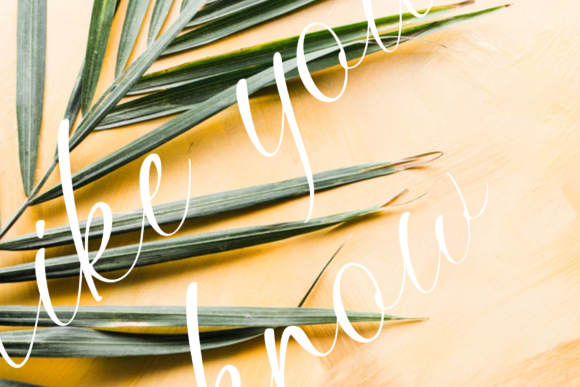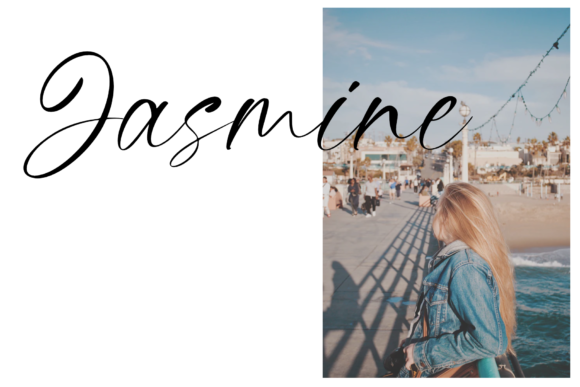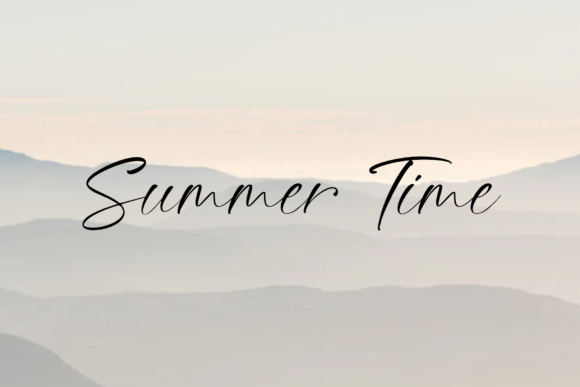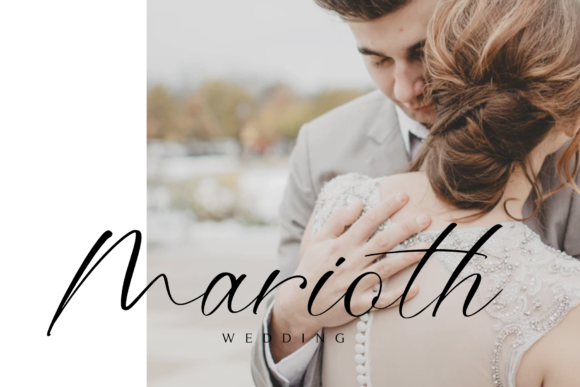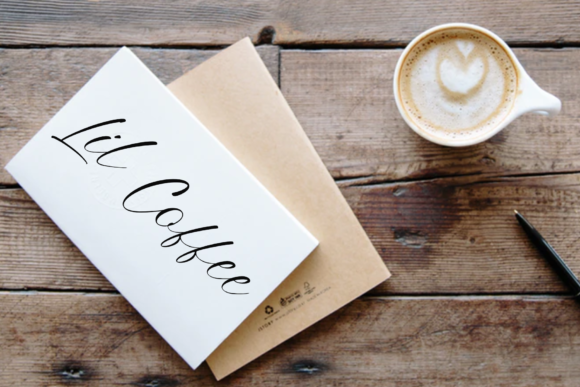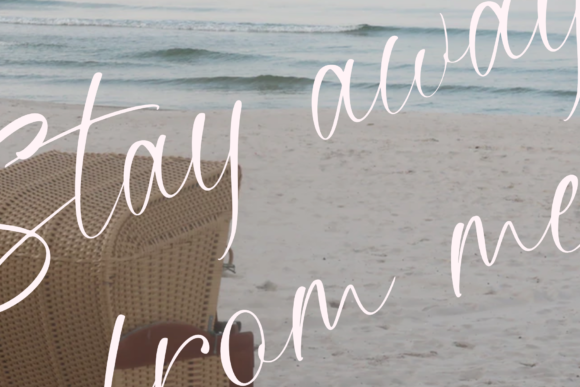
Introduction to Ruttany Font
Have you ever found yourself staring at a blank canvas, searching for the perfect font to bring your creative project to life? That’s exactly where I was when I stumbled upon the Ruttany Font – a modern script font that instantly captured my heart. Its clean and elegant lines, reminiscent of a brush pen, made me feel like I was holding a real-life brush in my hands, ready to create something truly special.
As designers, we’re always on the lookout for high-quality design resources that can elevate our work and make it stand out. The Ruttany Font is a game-changer, offering a free download that’s perfect for logos, branding, social media, and crafty DIY projects. With its transparent background, the possibilities are endless – from digital designs to physical crafts, this font is a must-have in any designer’s toolkit.
Key Features of Ruttany Font
- High-quality design resource with a unique, hand-drawn aesthetic, perfect for creative projects requiring a personal touch.
- Designed to be versatile, making it suitable for a wide range of creative projects, from branding and advertising to digital art and editorial design.
- Perfect for designers seeking a distinctive, high-quality font that adds a touch of personality to their work.
Honest Review: Ruttany Font
As a designer, I’m always on the lookout for high-quality design resources to enhance my creative projects. Recently, I came across the Ruttany Font, and I must say it’s been a game-changer for me.
Here are some of the things that work well with the Ruttany Font:
- ✨ High-quality design: The font is crisp, clear, and beautifully crafted, making it perfect for any design project.
However, I do have to mention a few limitations:
- ⚠️ Limited font styles: While the font is beautiful, it’s limited to a few styles, which might not be suitable for every design project.
- ⚠️ Limited character set: The font’s character set is limited, which might not be ideal for designers who need to work with non-English text.
Overall, I’m impressed with the Ruttany Font, and I would definitely recommend it to fellow designers. It’s a high-quality design resource that’s perfect for creative projects, and its free download feature makes it a valuable addition to any designer’s toolkit.
The Ruttany Font is a high-quality design resource that can add a unique touch to your creative projects. It’s available for free download and features a transparent background, making it versatile and easy to use.
In PowerPoint and Word, you can use the Ruttany Font to add a touch of elegance to your presentations and documents.
The Ruttany Font is ideal for a variety of creative projects, including:
Logo design
Infographics
Business cards
Invitations
Does the Ruttany Font have a transparent background, making it suitable for overlaying on images?
Yes, the Ruttany Font has a transparent background, making it ideal for overlaying on images or using as a design element in your creative projects. The transparent background also allows designers to easily combine the font with other design elements, such as images or graphics, to create visually appealing compositions.